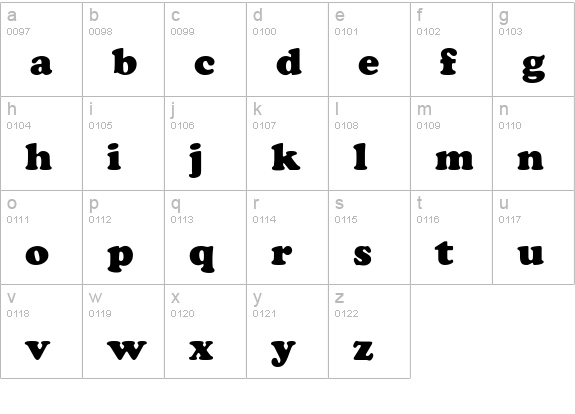
Chacey Font Details
Chacey font is a stunning and elegant typeface that exudes sophistication and charm. With its graceful curves and stylish flourishes, this font is perfect for adding a touch of class to any design project. Whether you're creating wedding invitations, branding materials, or social media graphics, Chacey font will elevate your work to the next level. What sets Chacey font apart is not only its beauty but also its versatility. It can be used for a wide range of purposes, from formal to whimsical, making it a must-have in any designer's toolkit. Additionally, Chacey font is free to download at FontsMarket.com, giving you access to this exquisite typeface without any cost. Don't miss out on the opportunity to enhance your designs with the timeless elegance of Chacey font.